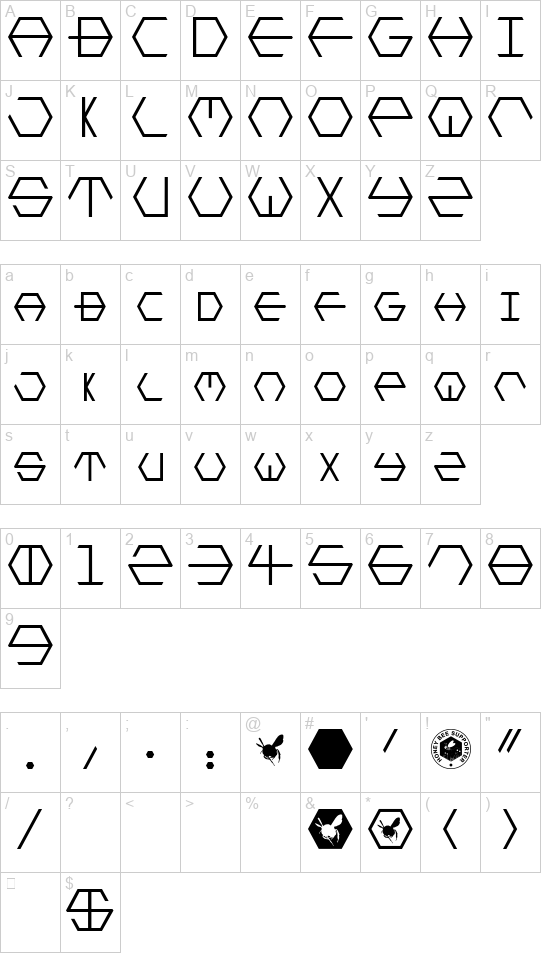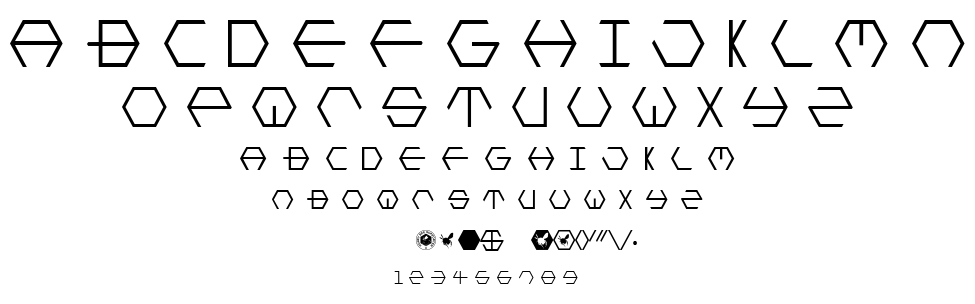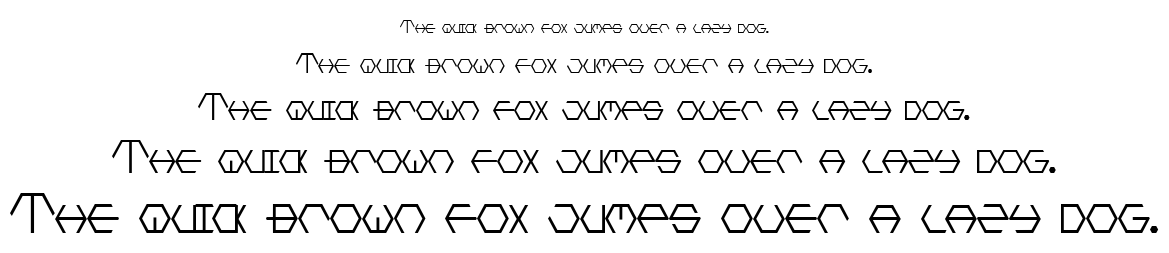
Honey Combed font
Originally created for the shear enjoyment of playing with the Hexagonal Honeycombed Shape and what I could do with it. I hope you all enjoy using it as much as I did creating it. Several individual letters like the K,I,X don’t offer themselves to the shape very well but when joined make the Honeycombed shape. This font is now classed as Donationware all proceeds will go directly to the American Beekeeping Federation Fund of your choice.